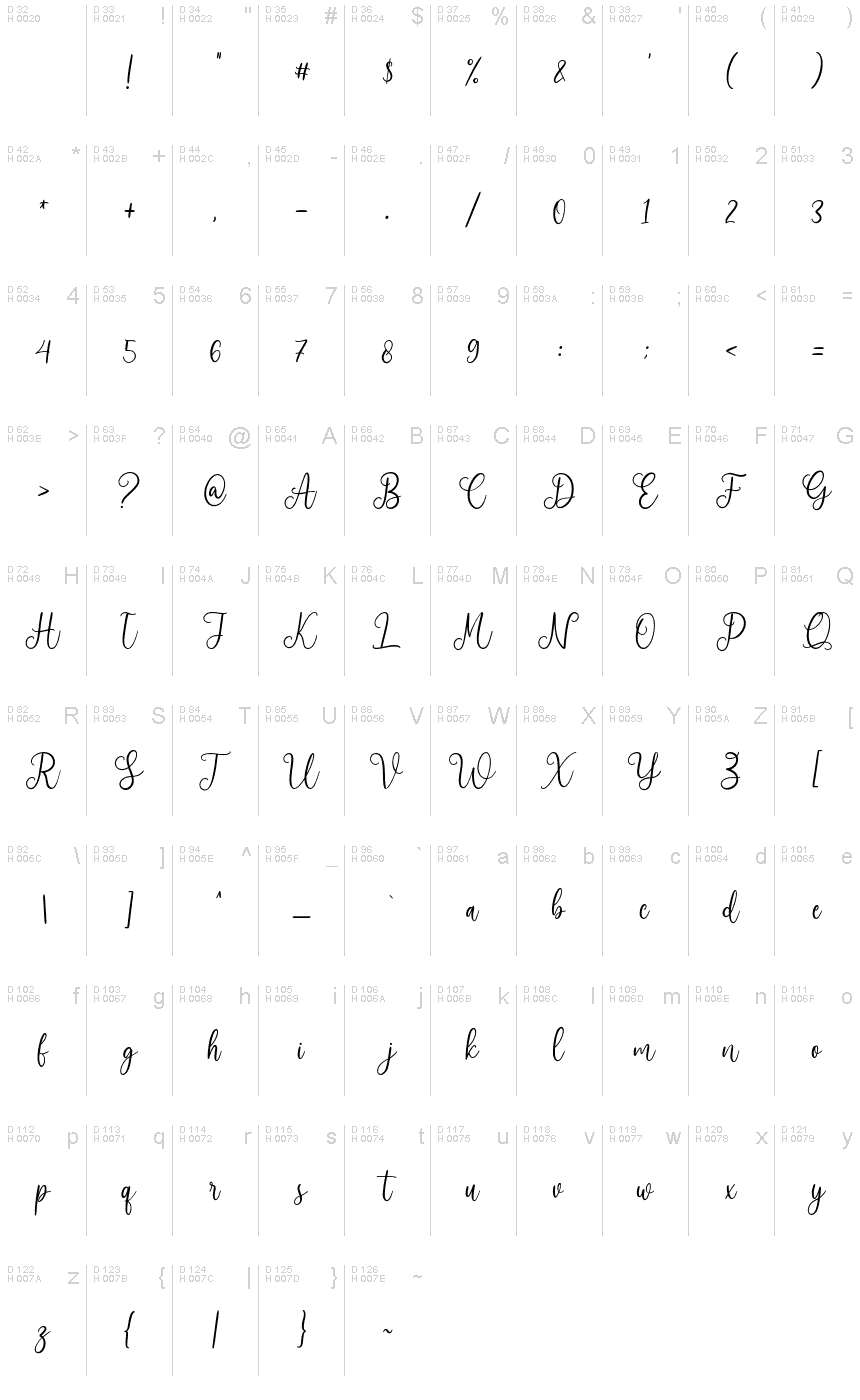
Anathelya
Anathelya, crafted by Maulana Creative, is a semi-light calligraphy font that exudes elegance and sophistication. The graceful curves and intricate strokes of this typeface make it perfect for projects in need of a touch of class. Use Anathelya for wedding invitations, formal event programs, or high-end branding materials. Its thin weight makes it ideal for delicate designs that require a refined touch. With Anathelya, your projects will stand out with its unique and luxurious look. Let this exquisite font elevate your artistic vision to the next level.